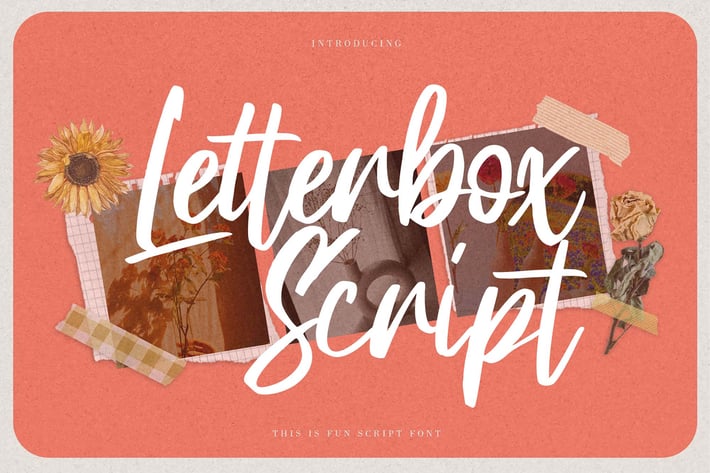
Letterbox Script - This is Fun Script Font
Hello Everyone, introduce our new product Font Letterbox Script This is Fun Script Font. This is a Textured Natural Style and script style with smooth handwritten.
This font Letterbox Script is great for your next creative project such as logos, printed quotes, invitations, cards, product packaging, headers, Logotype, Letterhead, Poster, Design this font is great for your creative projects such as watermark on photography, and perfect for logos & branding, invitation,advertisements,product designs, stationery, wedding designs,label ,product packaging, special events or anything that need handwritting taste.
That is has charming, authentic and relaxed characteristic more natural look to your text.